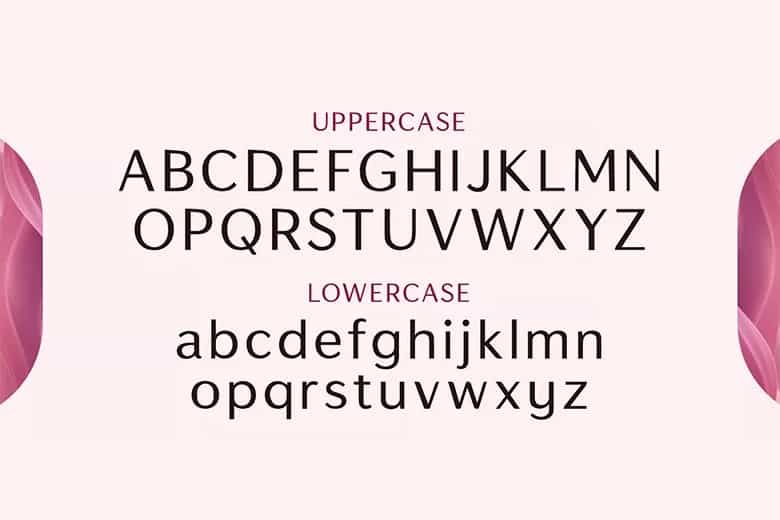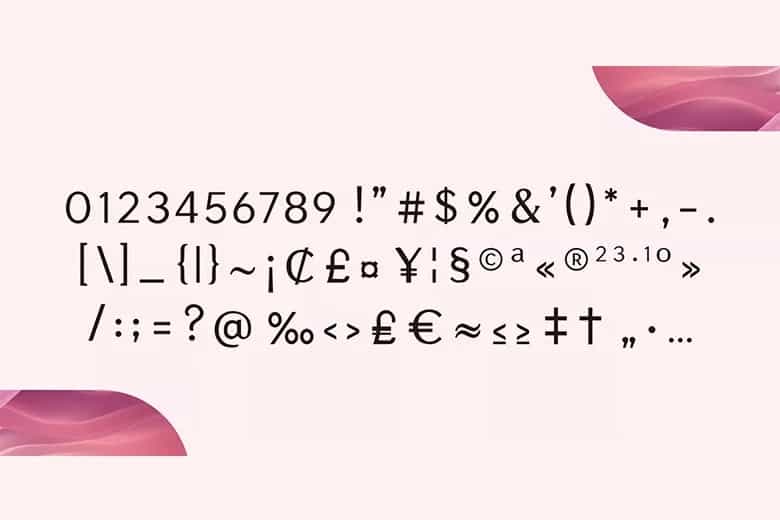
Lunea Sans is an elegant and feminine sans serif typeface that mixes sophistication, gentleness and enduring simplicity. Because of its smooth lines and sophisticated proportions, Lunea Sans can add an air of refinement to any type of project such as luxury identity work, wedding invitations, print layouts and packaging for cosmetics.